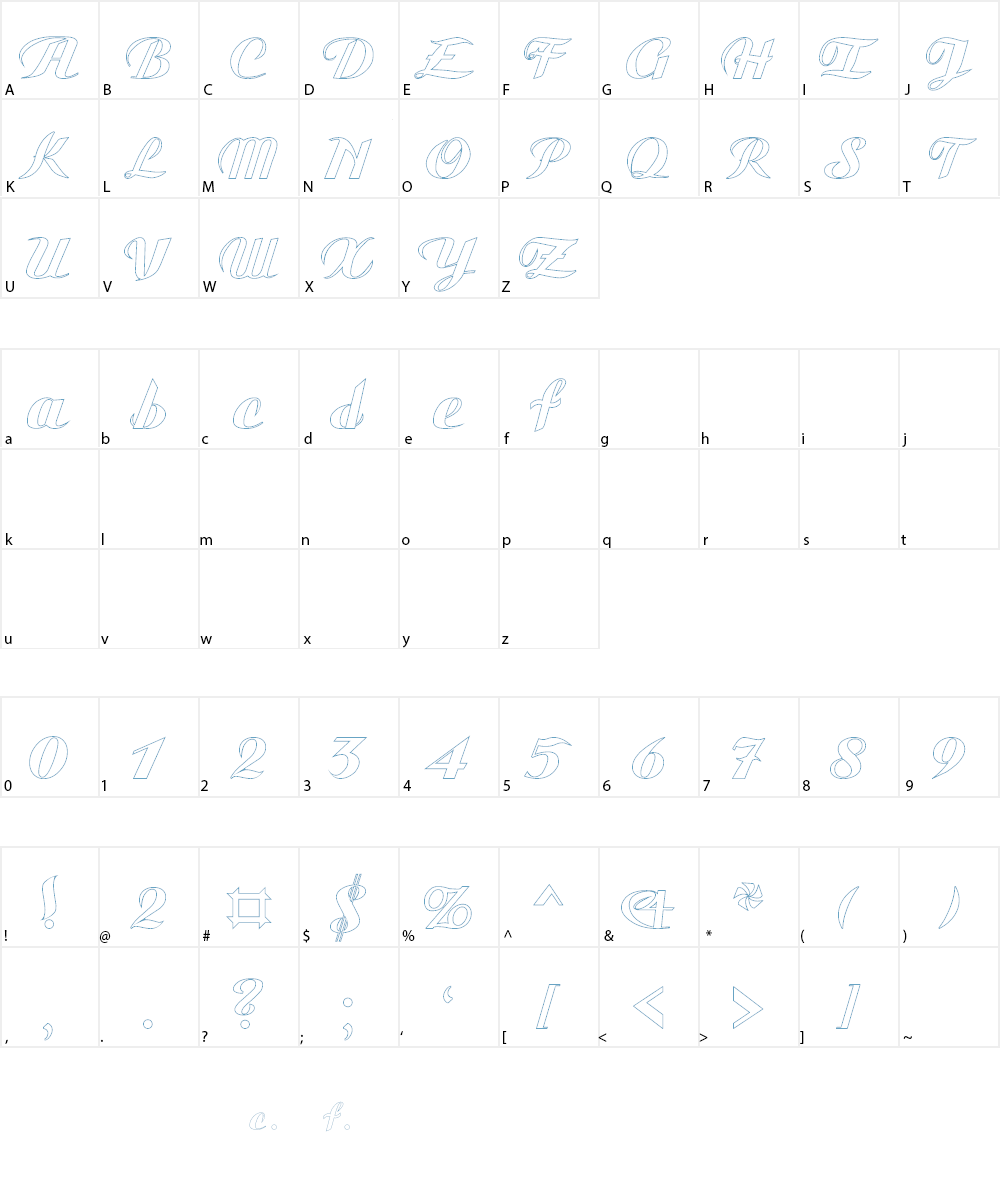
Gauche Display is a “tasteless and awkward” script font for those who don't exactly want sophistication in their typographic script usage.
Er, um, uh...“inspired” by several script fonts (all of which look much, much prettier), you can't take your eyes off this font, much in the same way you can't stop looking at a trainwreck. In other words, it sucks on purpose and lives up (or down, take your pick) to its name.Gauche Display is a "tasteless and awkward" script font for those who don't exactly want sophistication in their typographic script usage. In other words, it sucks on purpose.